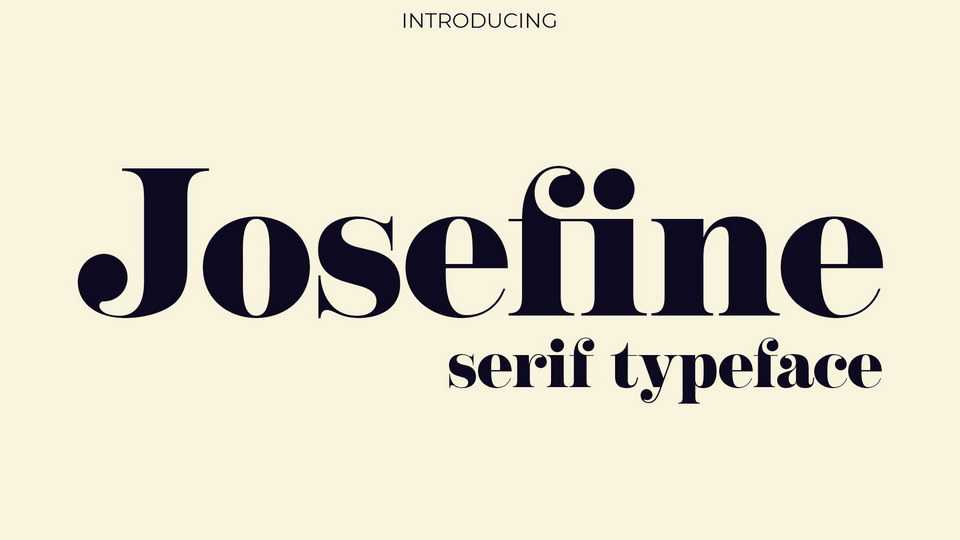
Download NT Josefine font, a high contrast serif typeface with a touch of elegance. NT Josefine will be perfect for many project: invitations, postcard, poster, book, advertisements, websites, blog header, logo, branding, magazines, fashion, photography, etc.
Designer: Artem Nevsky